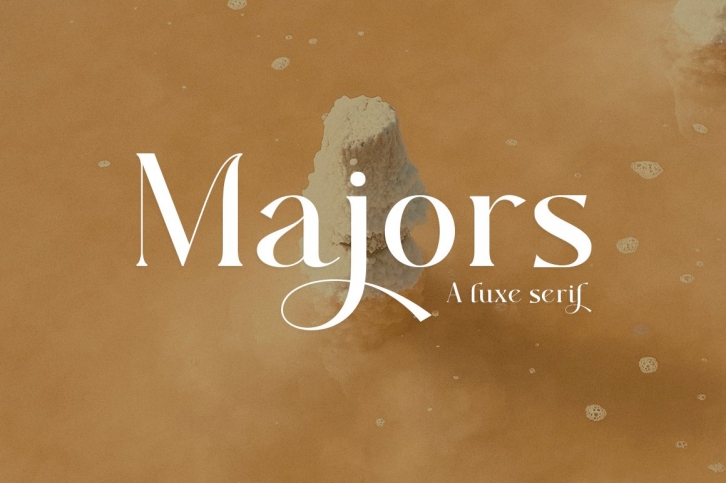
Majors A luxe serif is a beautiful font that was designed by Areatype Studio. It's a great choice for designers and creatives who need such a font. It was released on October 24, 2021 and the file size is 10.70 MB. Majors A luxe serif may give a more youthful, expressive and casual look to your project. It is a very beautiful, refined, elegant, and high-quality font.